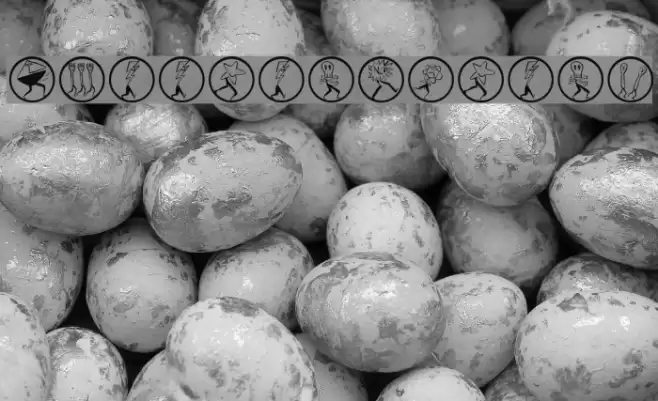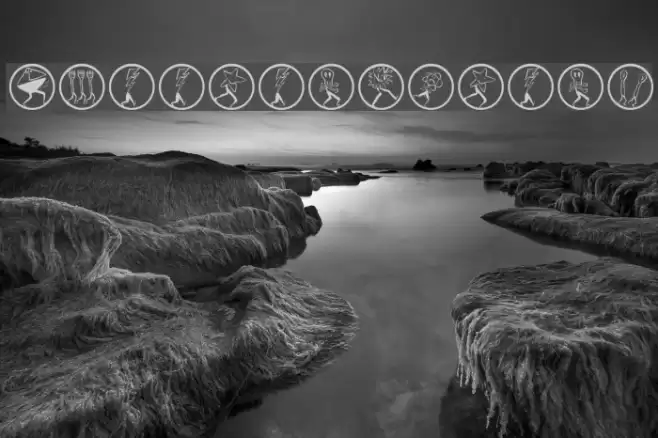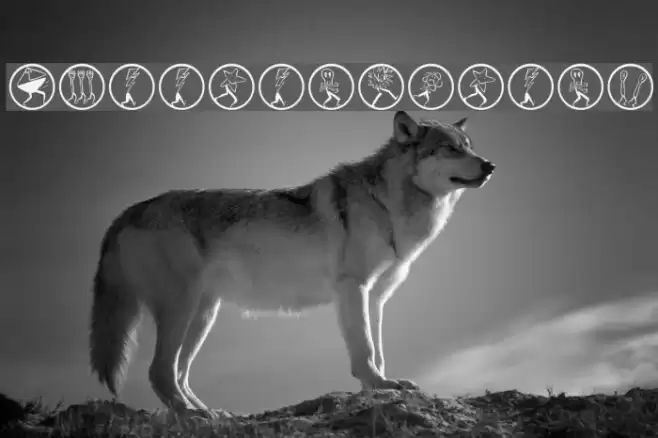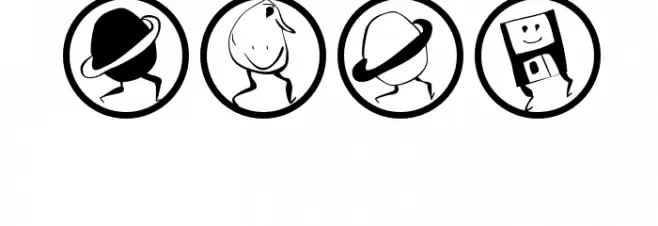
RunningBeings Font
RunningBeings Description
A playful, hand-drawn decorative font where each character is represented by a whimsical cartoon figure or object inside a circle, giving a lively and imaginative appearance. The style is informal, with varying line thickness and a sense of motion or personality in each glyph.
Cartoonish, hand-drawn decorative font with playful character illustrations from Uncategorized fonts.
- Proposed Projects: Children’s books, educational materials, posters, party invitations, creative branding.
- Overall Style: Playful, Whimsical, Decorative
- Use Case: Headlines, Logos, Posters, Themed graphics